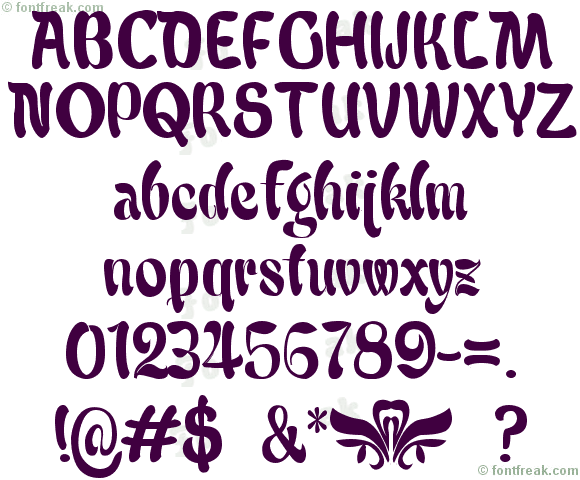
Babalu, designed by Luis Fernando Carvente, is a captivating display font that showcases a unique blend of playful elegance and artistic flair. This decorative font features a distinctive handwritten style, making it stand out in a crowded design landscape. The strokes exhibit a medium weight with a slight contrast, lending the letters both legibility and charm. The spacing is generous, allowing each character to breathe, while the rounded edges and whimsical flourishes add a touch of creativity that invites the viewer's eye.
This versatile font is ideal for a variety of applications. It shines in wedding invitations, where its charming script can convey romance and sophistication. Additionally, Babalu is perfect for movie posters, breathing life into title designs with its dynamic personality. Restaurant menus can also benefit from its engaging style, as it adds a delightful touch that enhances the dining experience. Furthermore, small business owners looking to create memorable branding will find Babalu an excellent choice for logos and promotional materials. Content creators seeking to add flair to their projects will appreciate its unique character as well.
The target audience for Babalu includes graphic designers, small business owners, and content creators who value creativity and distinctiveness in their work. By incorporating this font into their designs, they can capture attention and convey messages with style.
What truly sets the Babalu font apart is its ability to evoke emotion while maintaining clarity. Its artistic features combined with its usability make it a favorite among designers. For those looking to enhance their projects with a touch of whimsy and elegance, the Babalu font free download offers an exciting opportunity to elevate any creative endeavor.